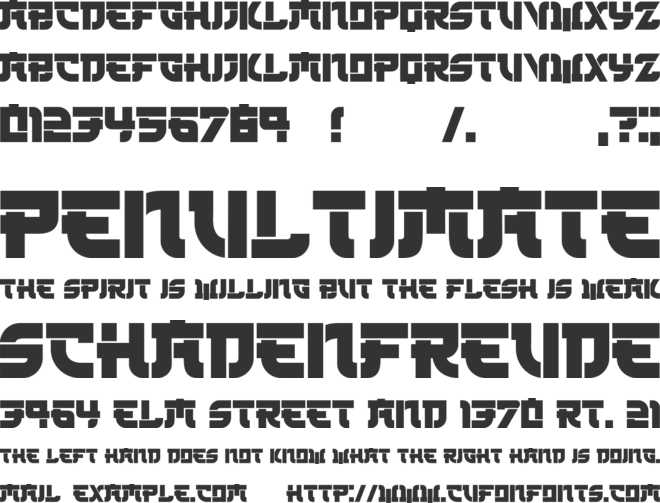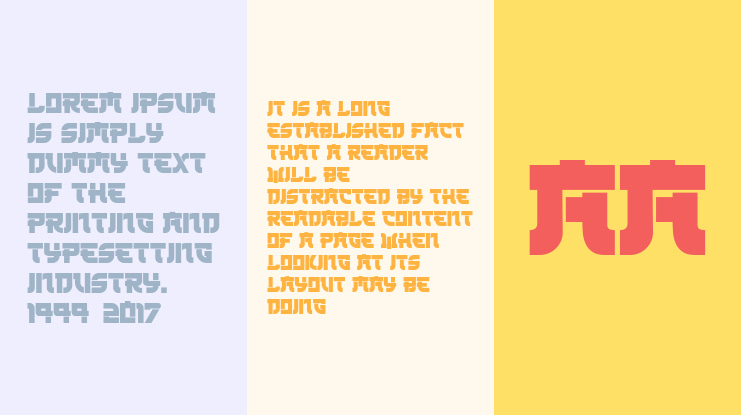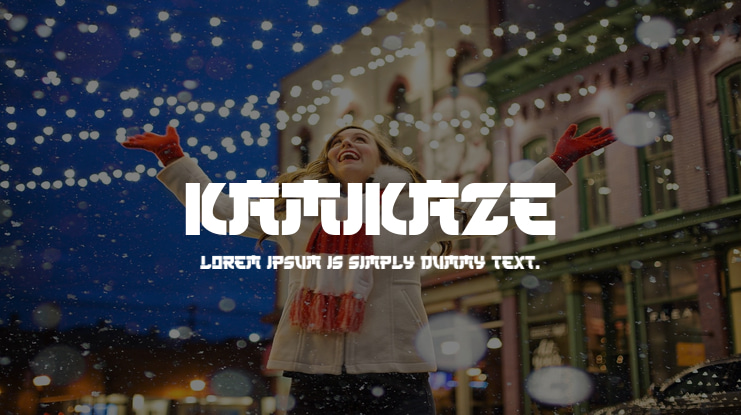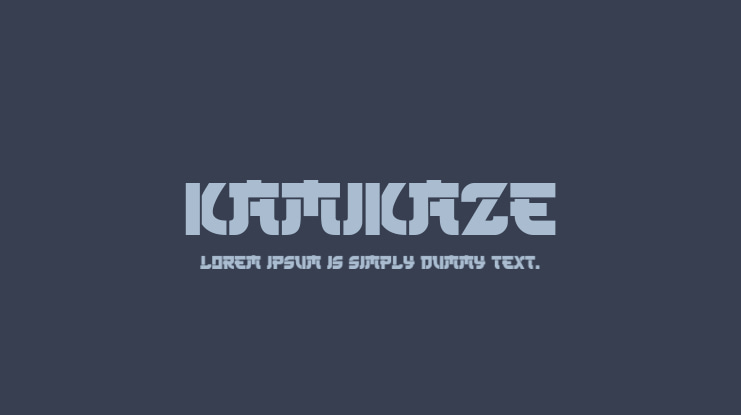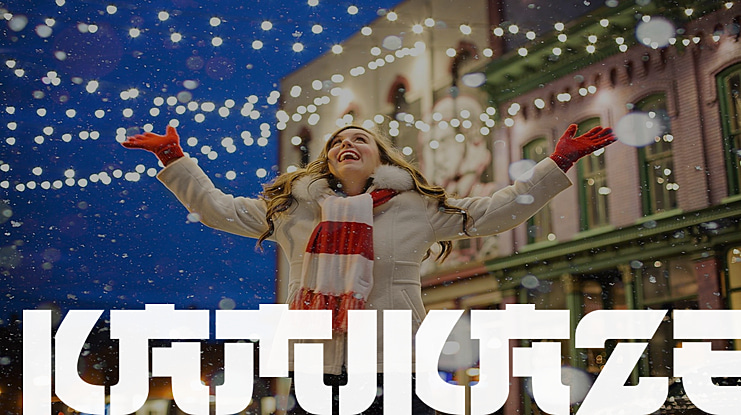
Kamikaze Font Family
Vladimir Nikolic
Based on "Japanese 3017" by awesome Darrell Flood. "Kamikaze" font family is 100% free for personal and commercial use! Enjoy!